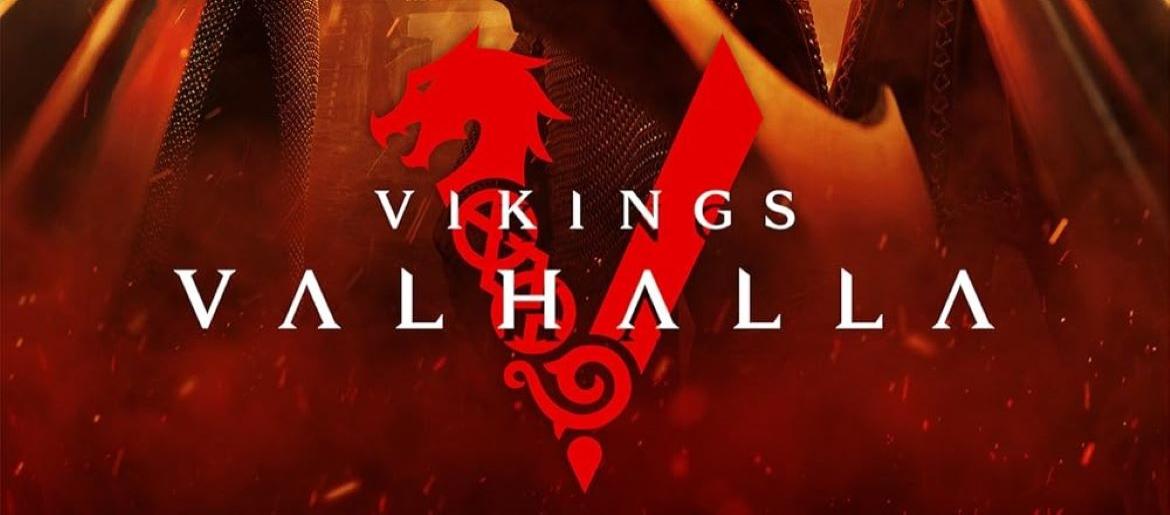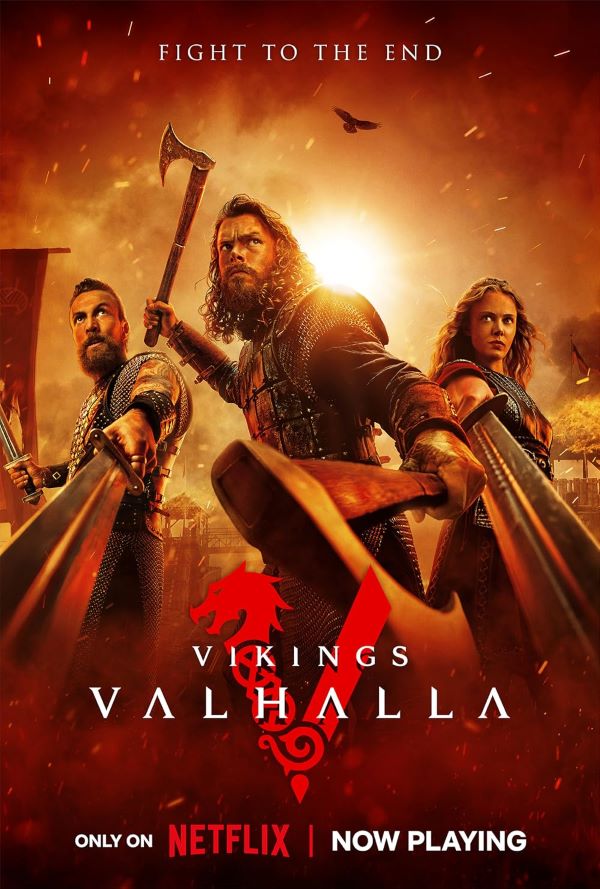
Vikings: Valhalla Font
What is The Vikings: Valhalla Font Font?
Vikings: Valhalla Font embodies the fierce and legendary spirit of Norse warriors through strong, angular letterforms and commanding presence. The typeface closely resembles Tautz Medium, a commercial font, though a free alternative has been found for design enthusiasts seeking the same bold, ancient-inspired aesthetic. Its rugged yet refined style makes it ideal for fantasy posters, gaming titles, and historical drama branding that channels power and heroism.
About Vikings: Valhalla
Vikings: Valhalla is a Netflix historical drama series that premiered in 2022 as a sequel to the hit show Vikings. Set over a century after the original series, it follows legendary Norse figures such as Leif Erikson, Freydis Eiriksdottir, and Harald Sigurdsson as they navigate conquest, exploration, and faith across Europe. Blending epic storytelling with intense battle scenes, the series continues the saga of Viking courage and destiny.